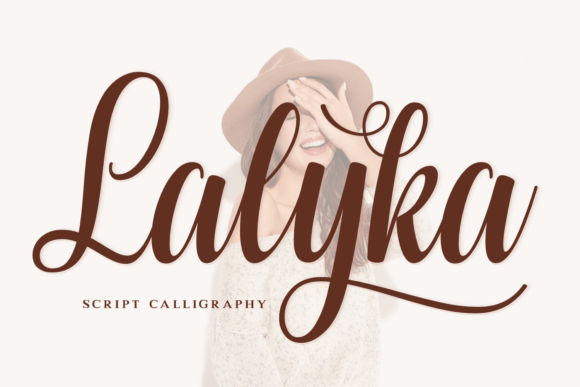
Prepare to be captivated by Lalyka Font, an exquisite script font that exudes elegance and timeless beauty. Step into the realm of creative possibilities with this enchanting calligraphy font, meticulously crafted to elevate your designs and leave a lasting impression.
Lalyka Font is not just a collection of characters; it's an artistic journey waiting to be explored. Its graceful strokes and delicate curves evoke a sense of sophistication and charm, making it the perfect choice for personal branding, business cards, wedding cards, and other special occasions. Envision your wedding invitations adorned with Lalyka Font's elegant script, conveying the love and joy of your special day in a truly unique way.
With Lalyka Font, your words will dance across the page, carrying messages of love, joy, and inspiration. Create stunning save-the-date invitations that capture the excitement of your upcoming celebration or design enchanting birthday cards that convey your heartfelt wishes. Let Lalyka Font be your creative companion, transforming ordinary words into works of art.
This captivating calligraphy font is PUA encoded, granting you effortless access to all of its glyphs and swashes. Unleash your creativity and explore endless possibilities, crafting designs that radiate sophistication and elegance.